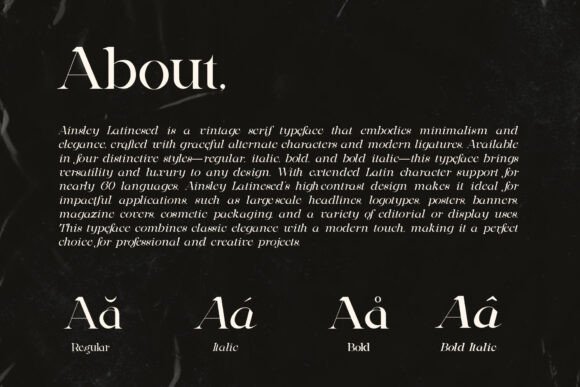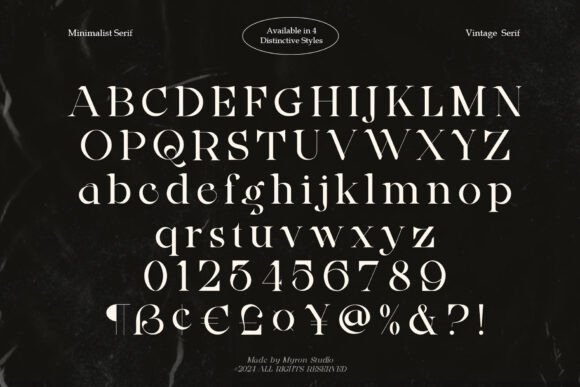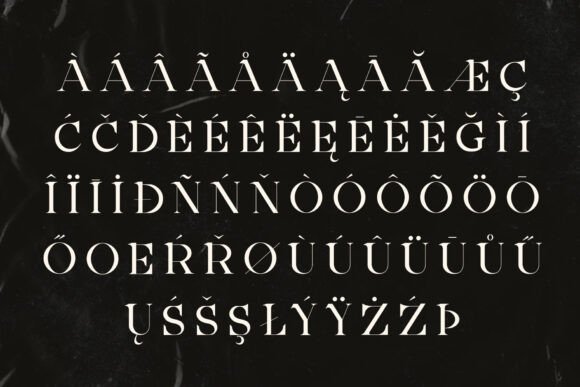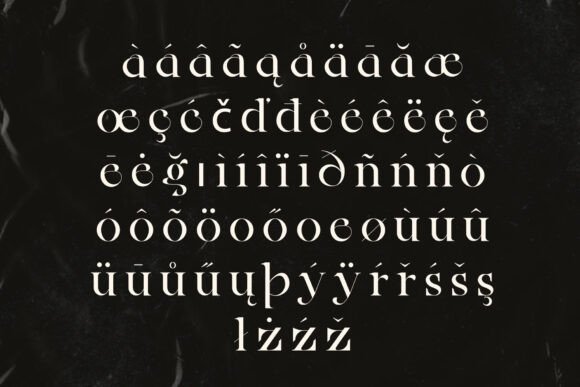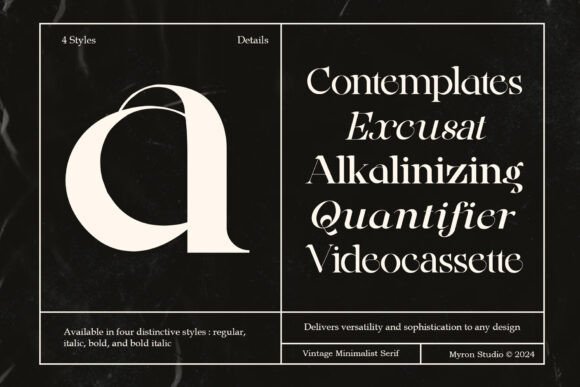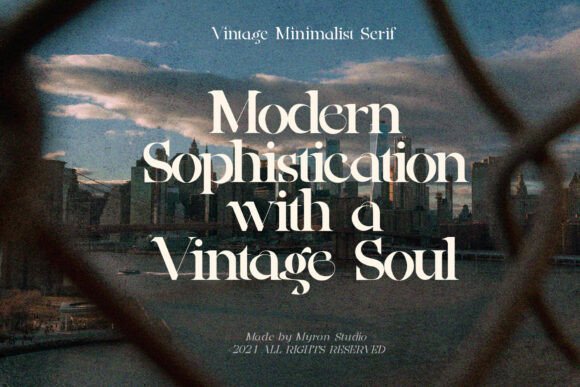
The Elusive Perfect Font: My Encounter with Ainsley Latinesed
Ah, the quest for the perfect font. We’ve all been there – scrolling through endless font libraries, trying to find that one typeface that elevates our design from good to great. I recall working on a project where I needed a font that exuded elegance and sophistication. My client wanted a luxurious feel, but I was struggling to find a typeface that fit the bill. That’s when I stumbled upon Ainsley Latinesed, a vintage serif font that has since become a staple in my design toolkit.
Ainsley Latinesed: A Closer Look
Ainsley Latinesed is a beautiful, minimalist serif typeface that embodies elegance and refinement. With its high-contrast design and extended Latin character support for nearly 70 languages, this font is perfect for a wide range of applications, from large-scale headlines to editorial and display uses.
What I Love About Ainsley Latinesed
- ✨ Elegant and refined design: Ainsley Latinesed’s high-contrast serif design makes it perfect for creating visually stunning headlines, logotypes, and body text.
- ✅ Versatility: Available in four distinctive styles – regular, italic, bold, and bold italic – this font offers a range of options for designers.
- 🌎 Multilingual support: With extended Latin character support, Ainsley Latinesed can be used for a wide range of languages and projects.
- 💻 OpenType features: Ainsley Latinesed supports OpenType features, including glyphs, stylistic alternates, and modern ligatures.
While Ainsley Latinesed is an excellent font, there are a few things to keep in mind:
- ⚠️ Legibility at small sizes: As with many high-contrast fonts, Ainsley Latinesed may not be the best choice for body text at very small sizes.
- 🤔 Overuse of stylistic alternates: While the alternate characters and ligatures are beautiful, overusing them can make the text look cluttered.
Ainsley Latinesed was designed with inspiration from classic serif fonts and a modern twist. The designer’s goal was to create a font that embodied elegance and sophistication while still being versatile and easy to use.
| Font Name | Ainsley Latinesed Font |
| Author | Myron Type |
| What is Ainsley Latinesed? | Ainsley Latinesed is a vintage serif typeface designed for elegant and refined designs. |
| What languages does Ainsley Latinesed support? | Ainsley Latinesed supports nearly 70 languages with extended Latin character support. |
| Is Ainsley Latinesed suitable for body text? | While Ainsley Latinesed is a beautiful font, it may not be the best choice for body text at very small sizes due to its high-contrast design. |